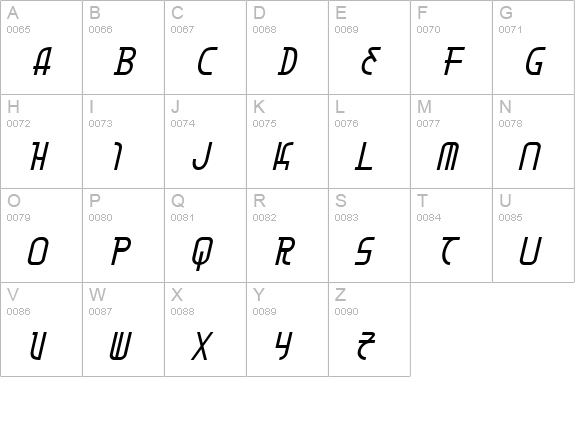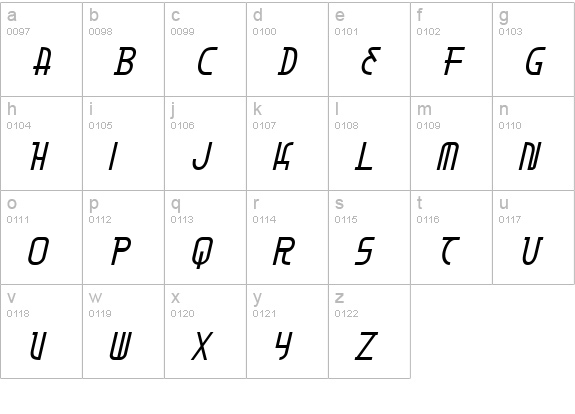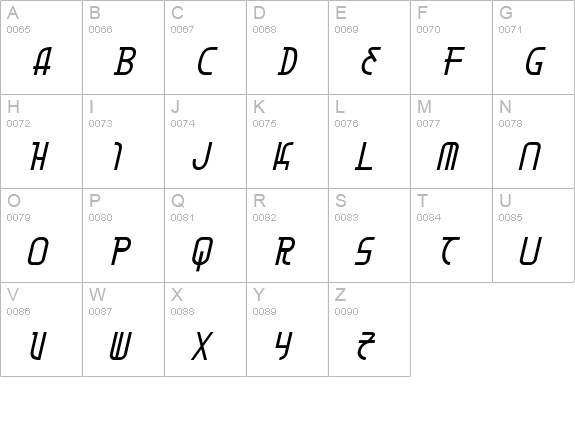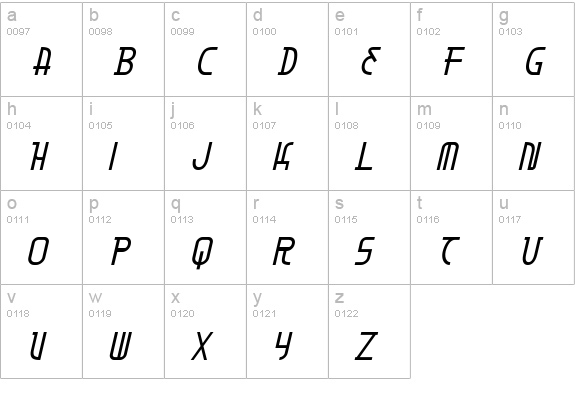
Moon Dart Italic is a distinctive, italic variant in the Moon typeface family \xE2\x80\x94 well suited to design and typography projects.
Moon Dart Italic font is a sleek and modern typeface that exudes elegance and sophistication. Its italicized design adds a touch of style and flair to any project, making it perfect for headings, logos, and other design elements. The smooth curves and clean lines of Moon Dart Italic font give it a refined and polished look that is sure to impress. Best of all, Moon Dart Italic font is completely free to download at FontsMarket.com. This means you can easily add this stunning font to your collection without breaking the bank. Whether you're a professional designer looking to enhance your projects or a hobbyist searching for a new favorite font, Moon Dart Italic font is a fantastic choice that won't cost you a thing. Download it today and elevate your designs with this exquisite typeface.